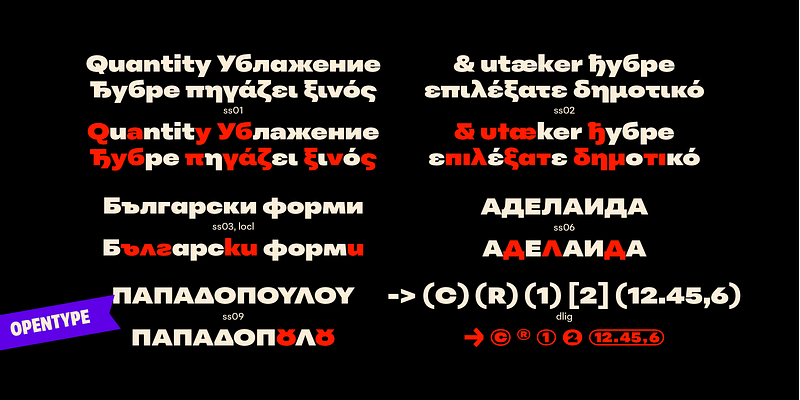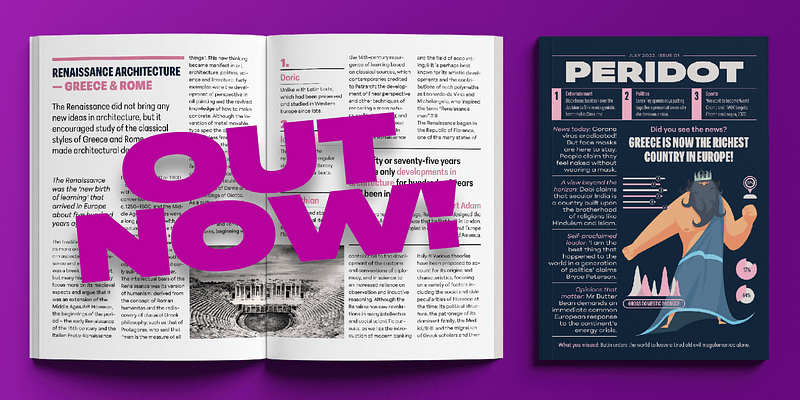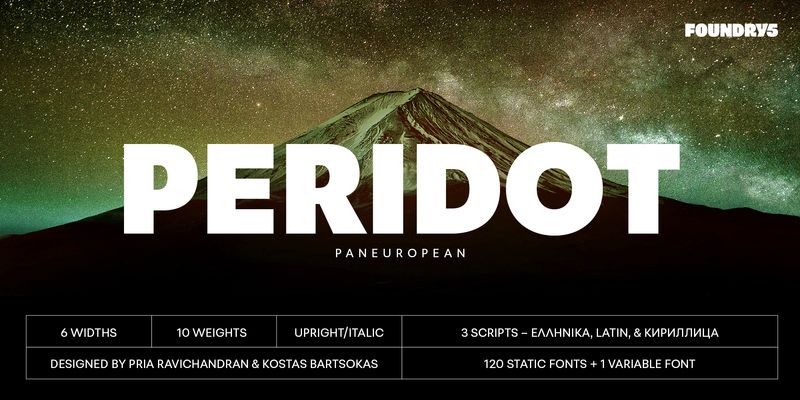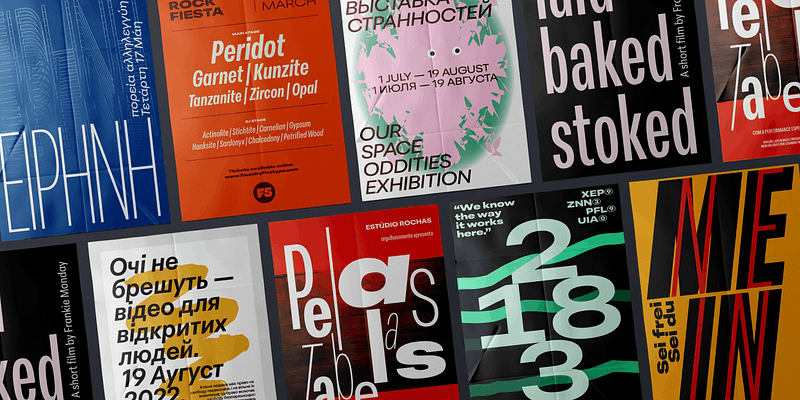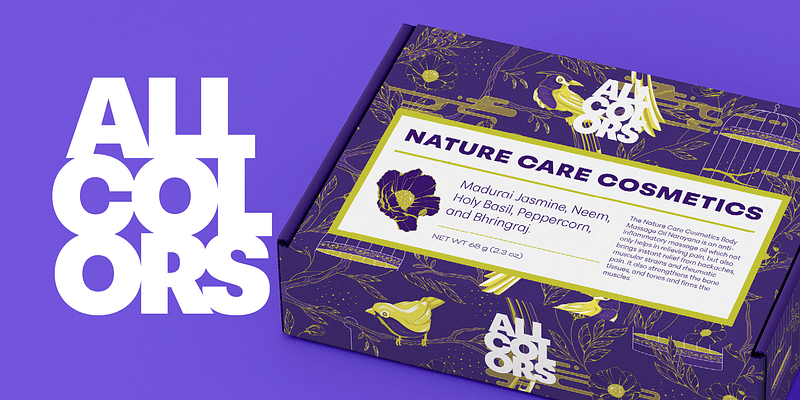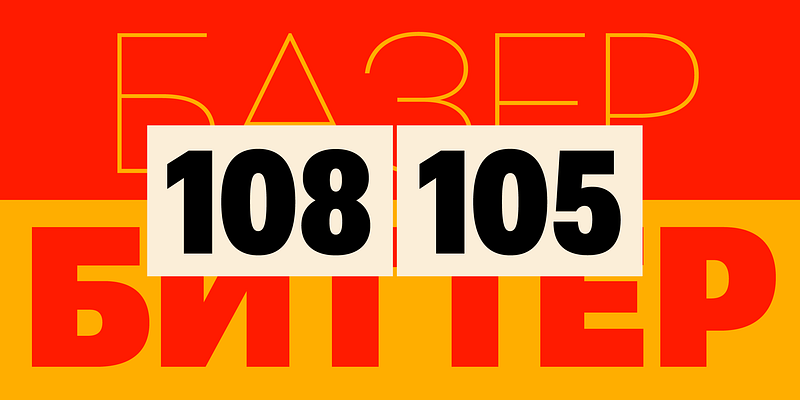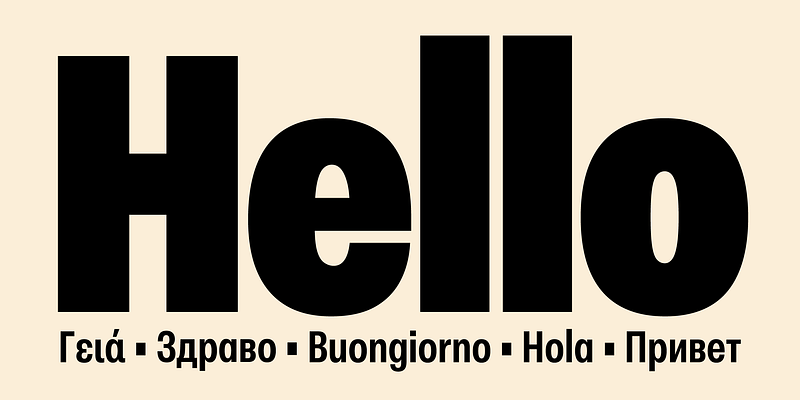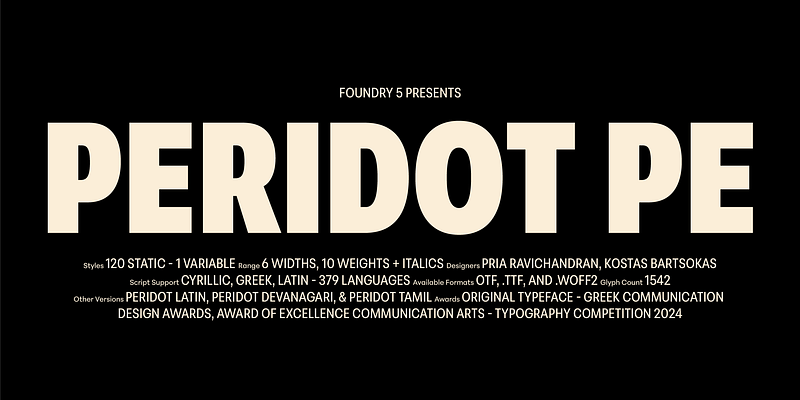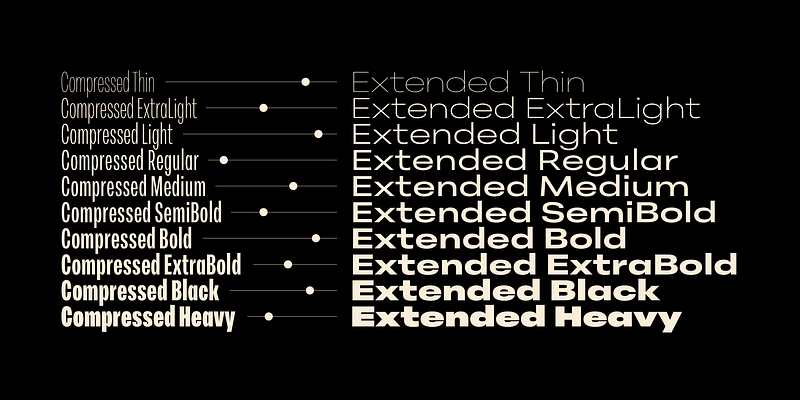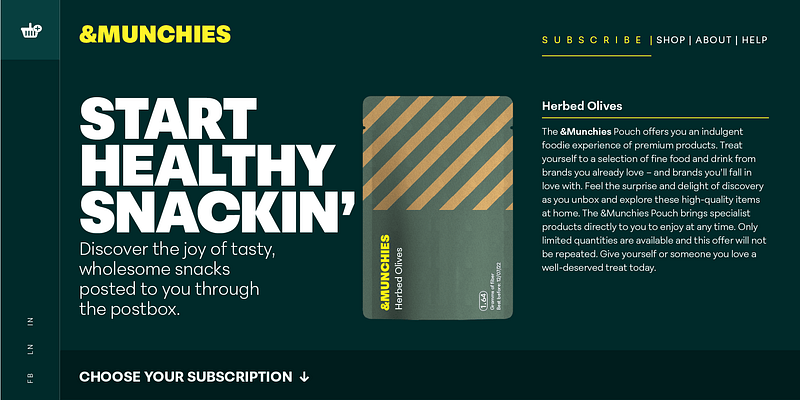
Mesmerised by a sparking greenish-yellow mineral called Olivine hidden within black basalt in the lava fields of Lanzarote, we decided to name the gem of our library after this beauty.
Introducing Peridot – a multifaceted sans serif type system by Foundry5. We burnt the midnight oil and sweated over minute details to present a high quality 10 weight family with slanted italics in 6 widths and the coveted variable format! Peridot is loaded with personality; try the different stylistic variants to change the typographic tone depending on your mood. The combination of widths and styles makes Peridot an exciting typographic palette for the discerning designer.